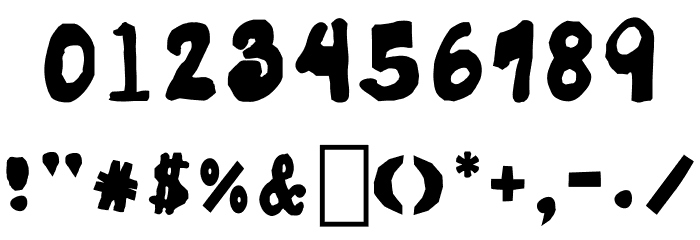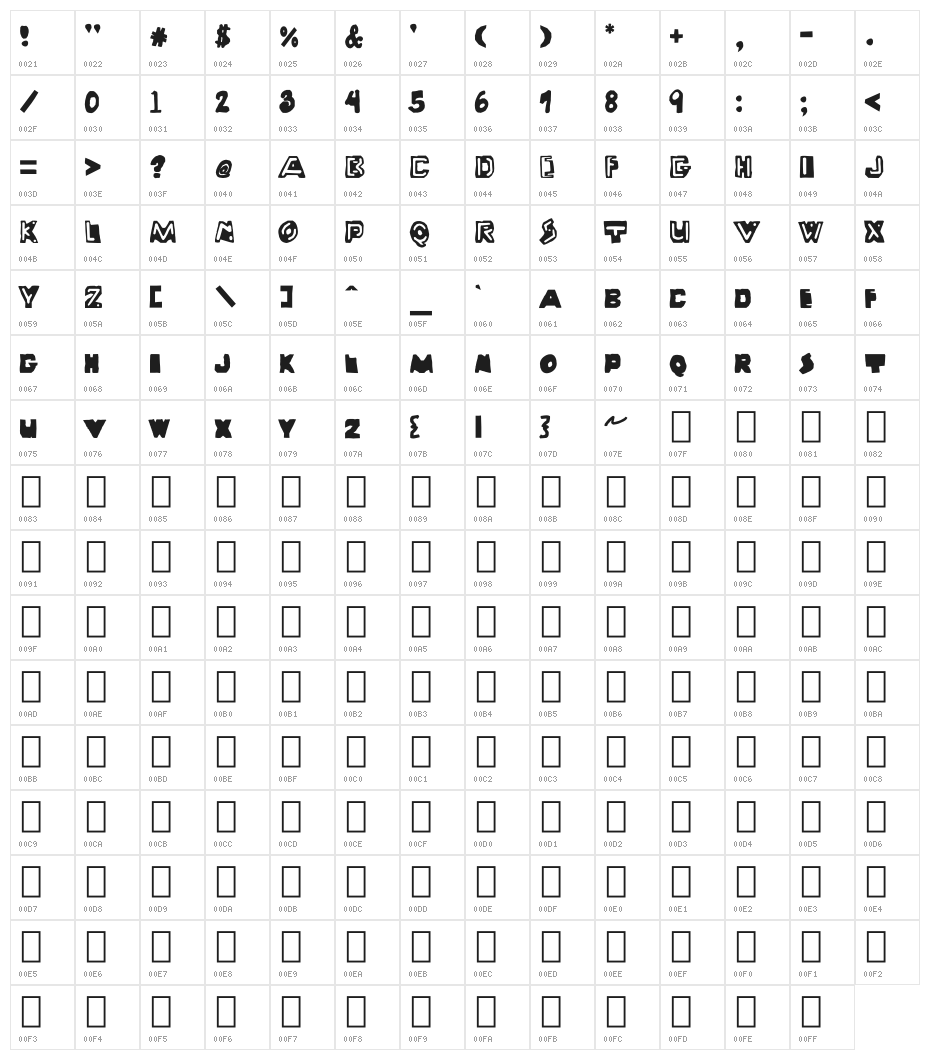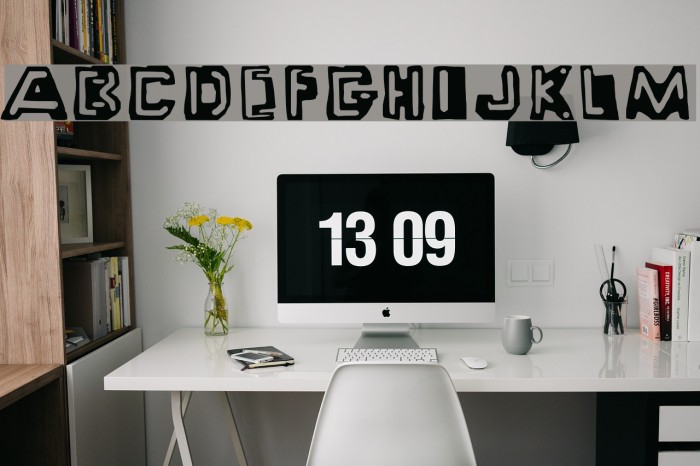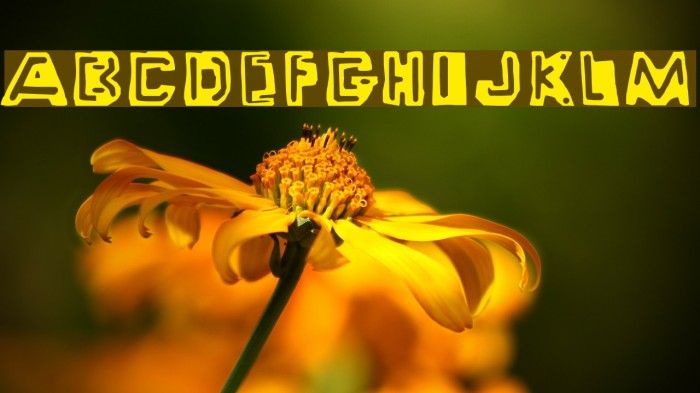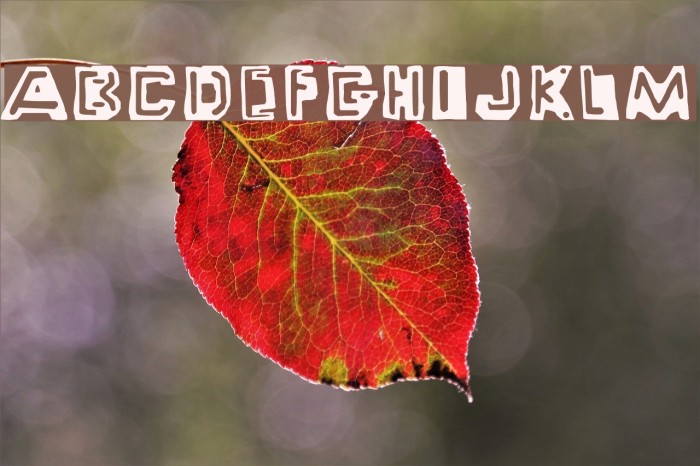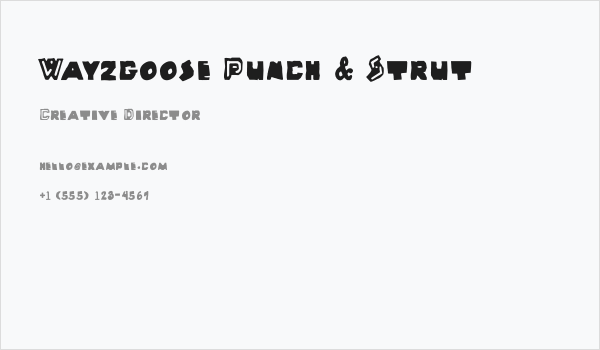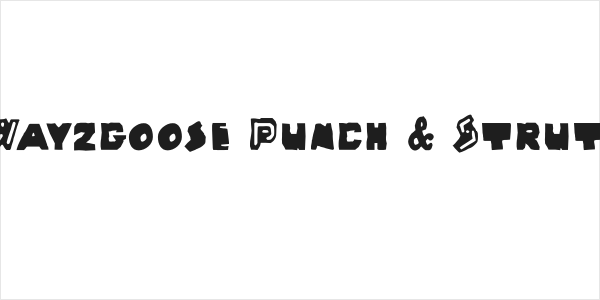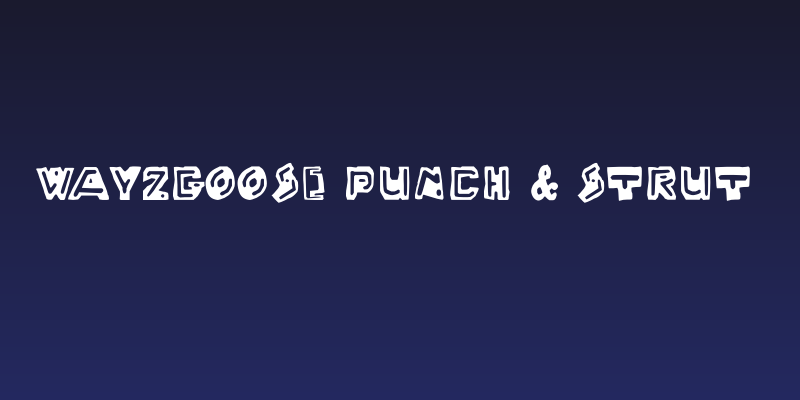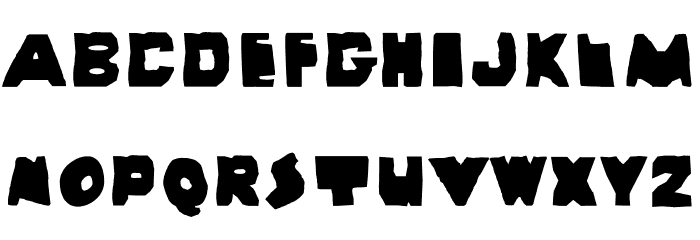
Wayzgoose Punch & Strut Font
Wayzgoose Punch & Strut Description
This font exudes a bold and playful character with its chunky, irregular shapes and high contrast. Each letter appears as if it has been carved or punched out, giving it a rugged, handcrafted feel. The uppercase and lowercase letters maintain a consistent style, with exaggerated serifs and uneven edges that add to its quirky charm. Numbers and special characters follow the same design principles, ensuring a cohesive look across all glyphs. The font's unique style makes it stand out, perfect for projects that require a strong visual impact.
| Proposed Projects | Ideal for posters, album covers, branding for creative industries, or any project needing a bold, artistic touch. |